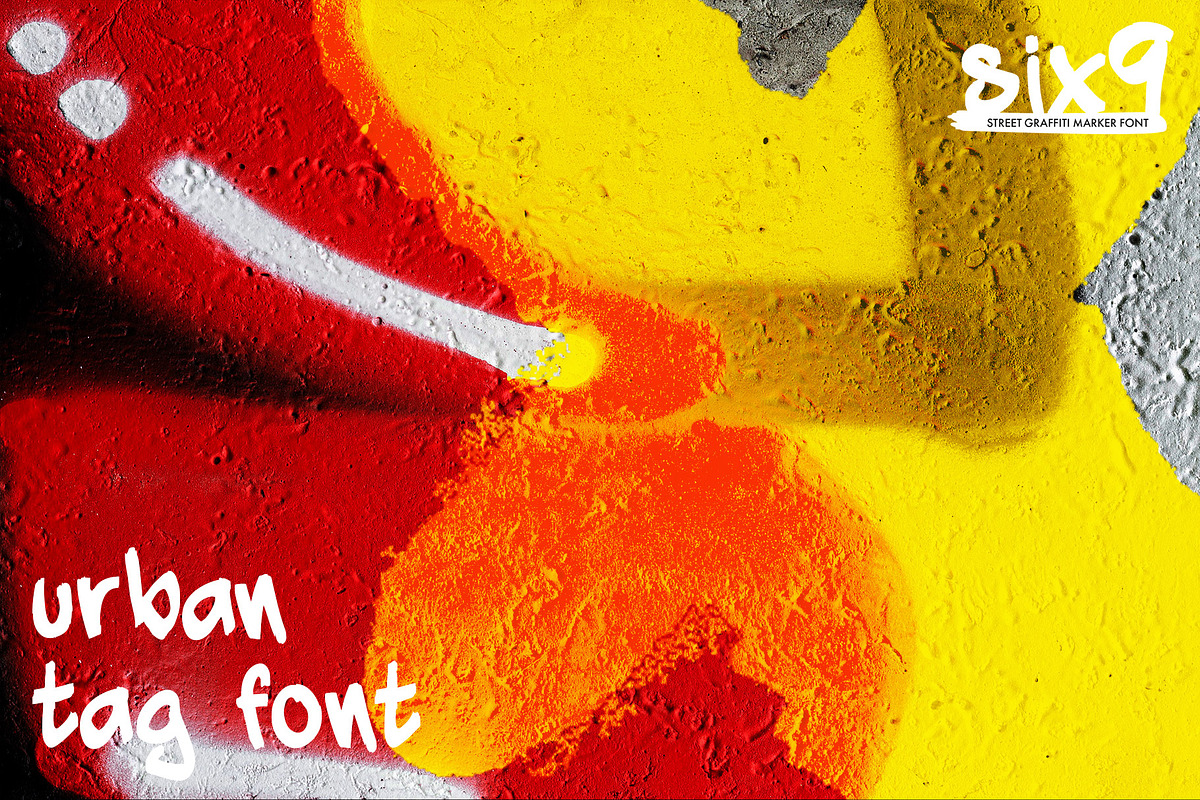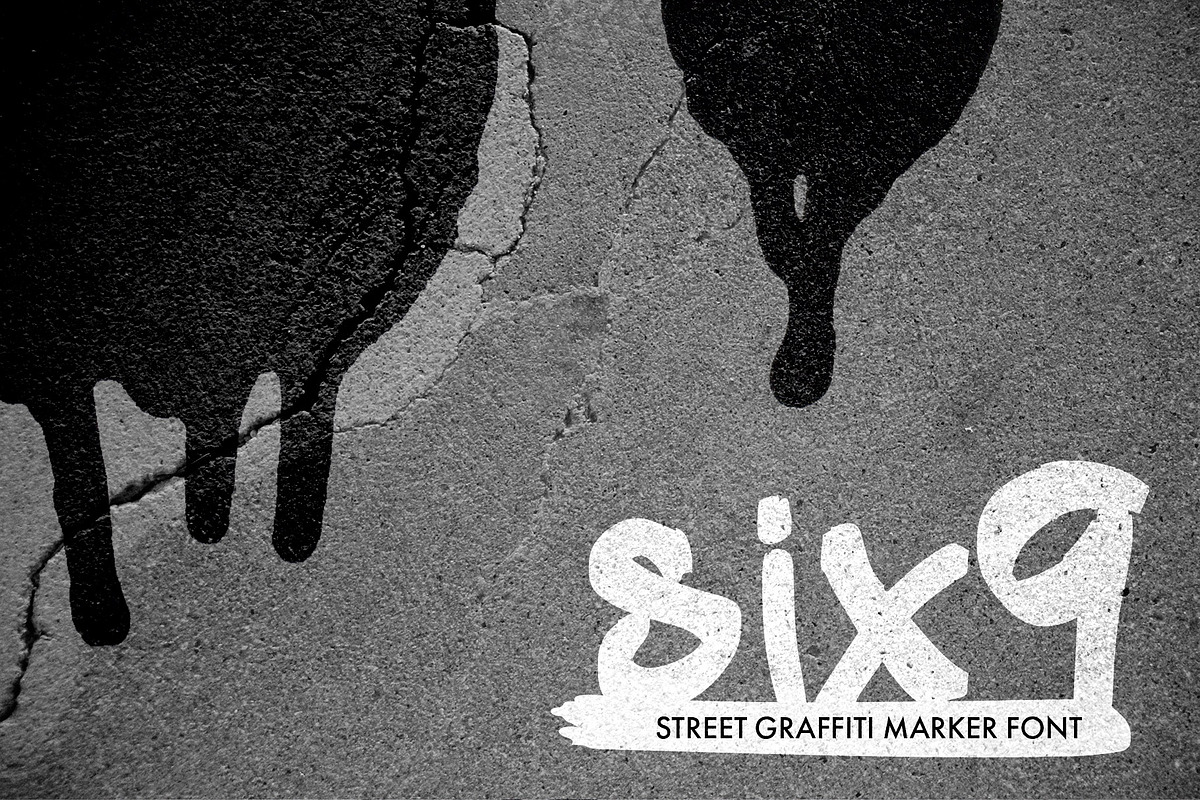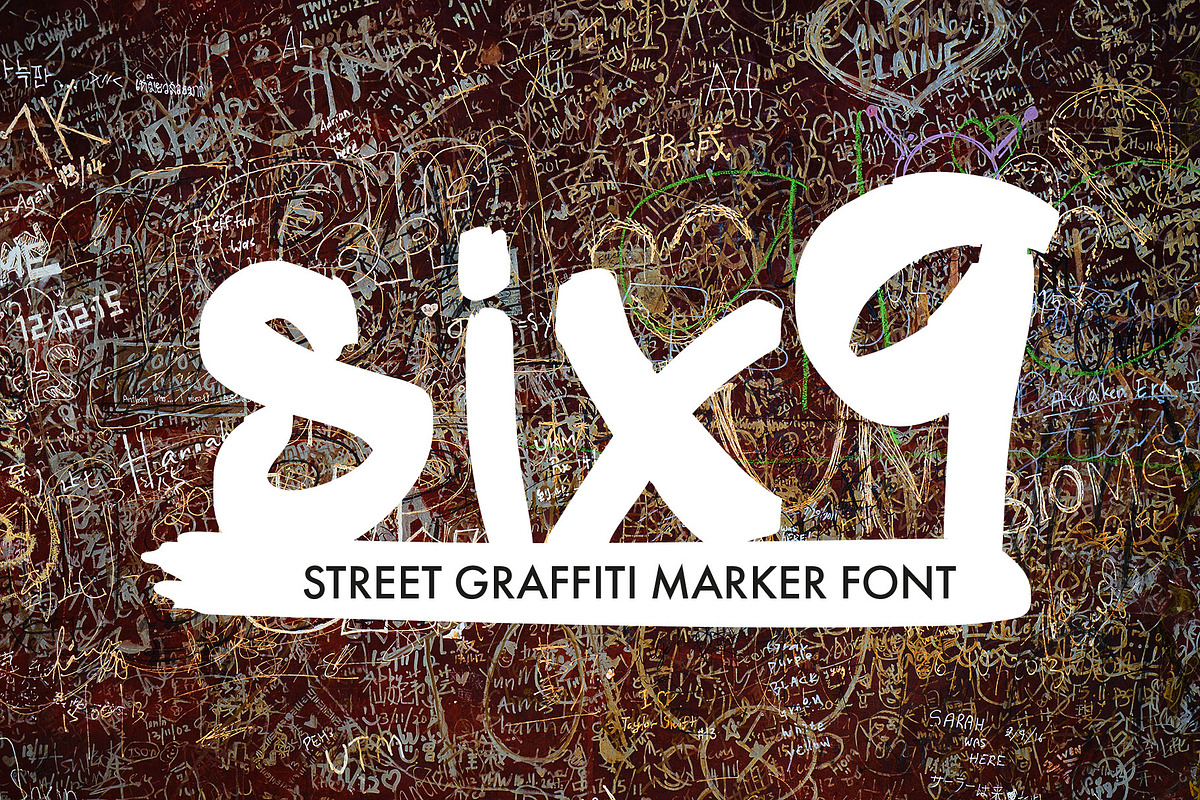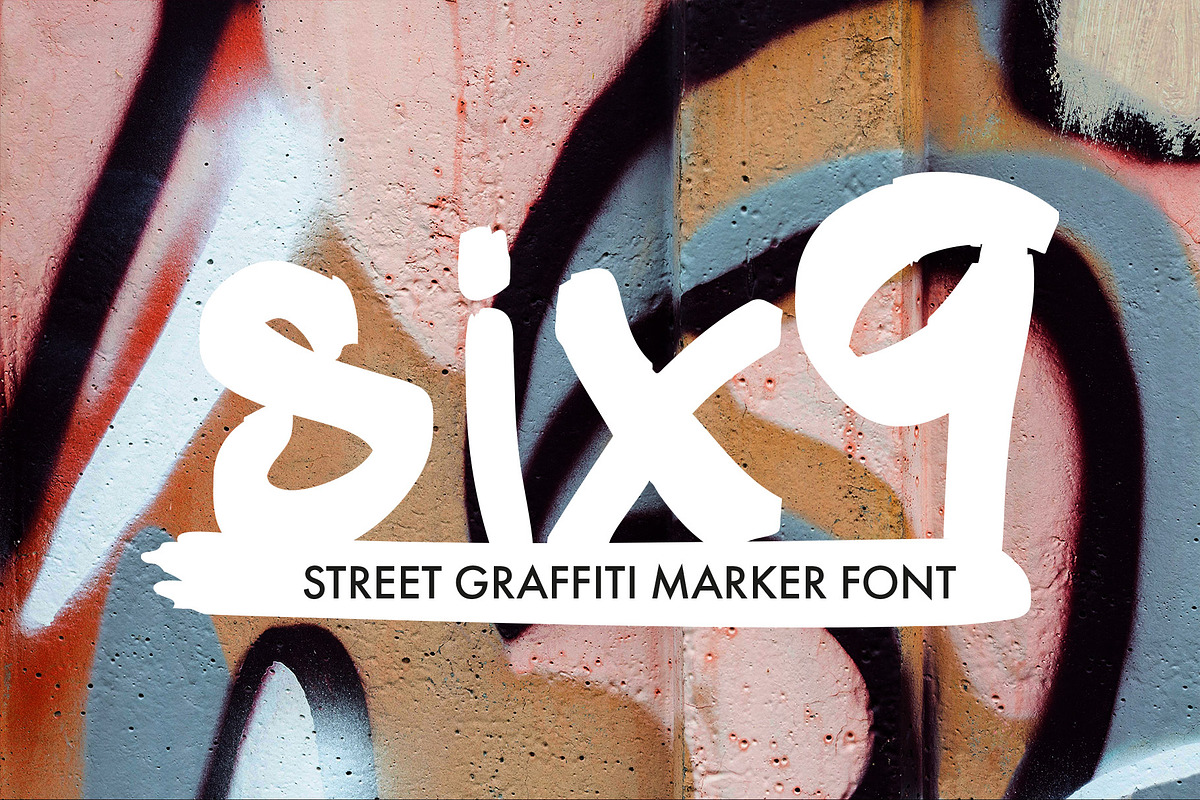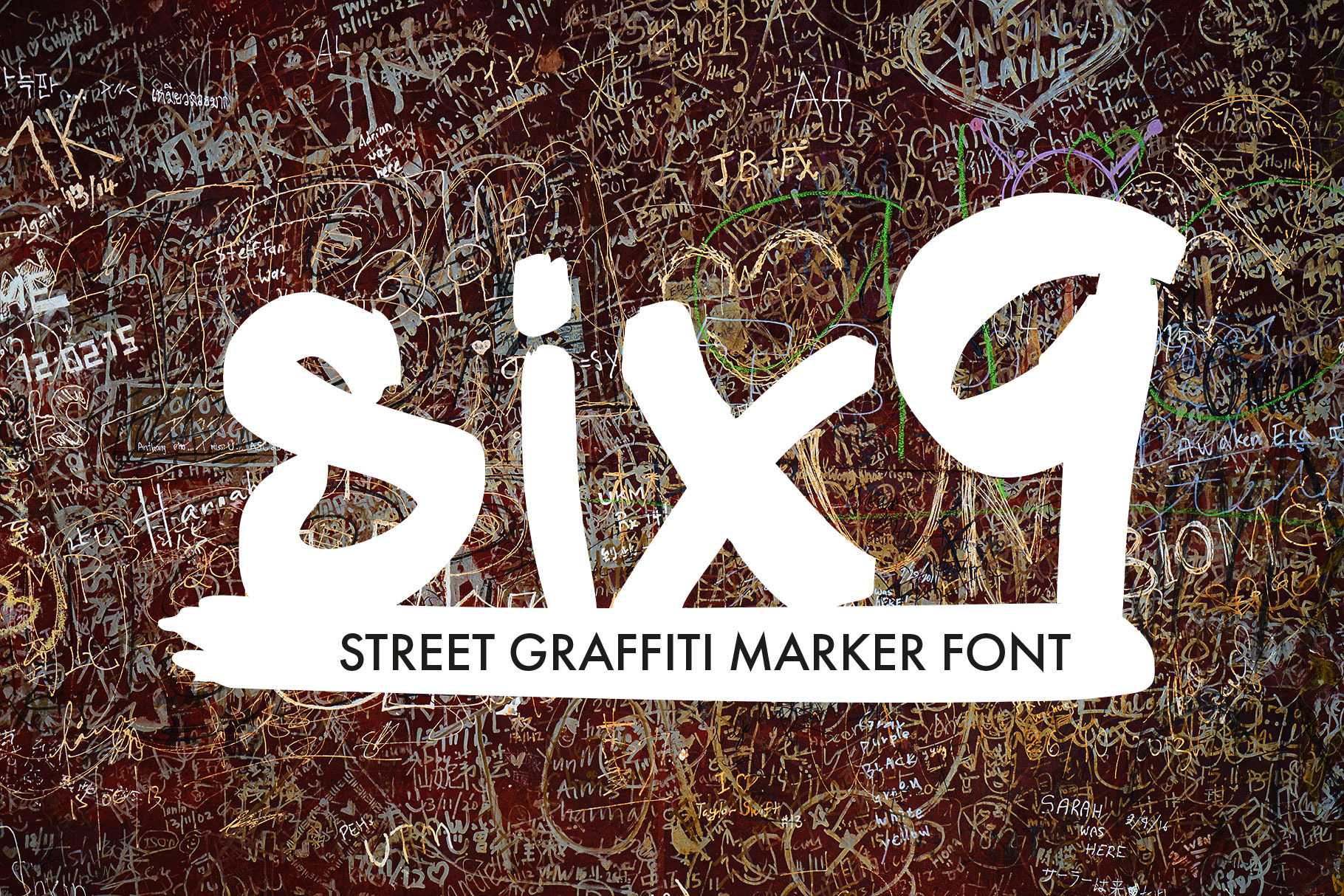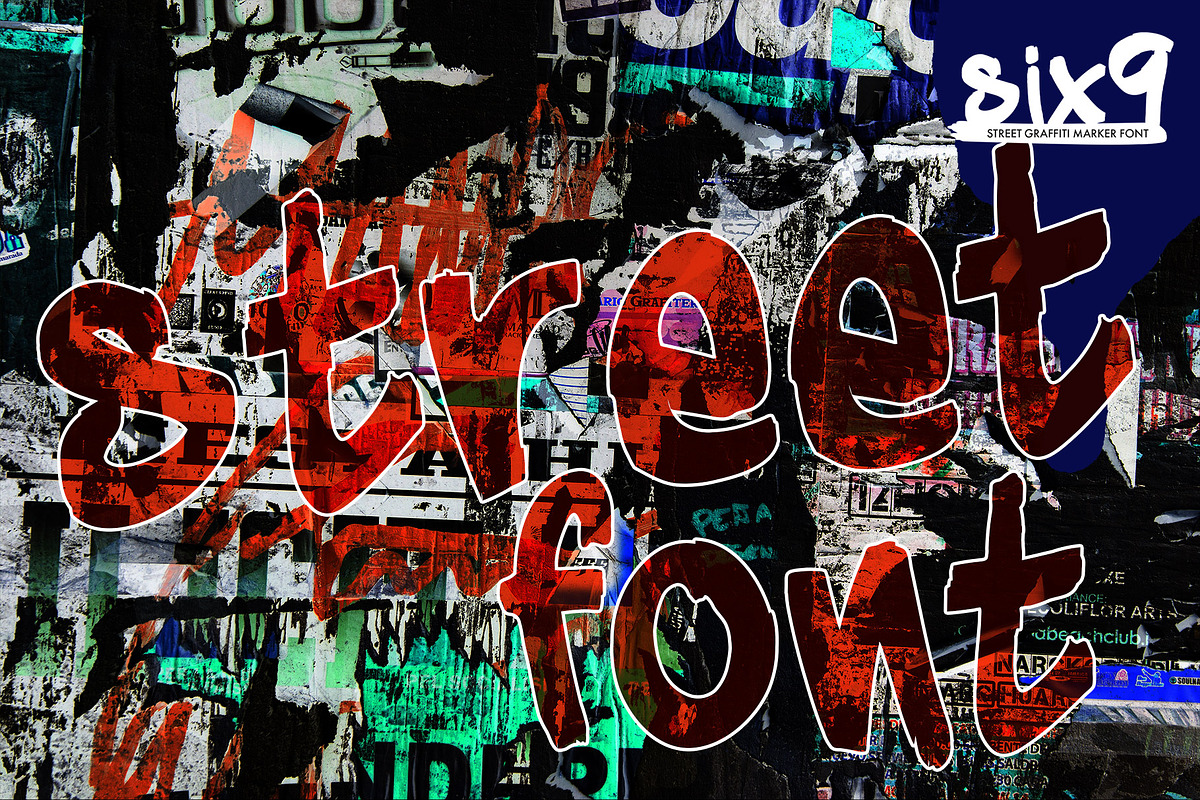
Six9 Graffiti Urban Tag Marker Font
Six9 is an urban graffiti font ready to take your projects to the next level! An evolution from the Six3 font originally created a few years back.
Inspired by the graffiti tags seen on the commute to work when on the train.